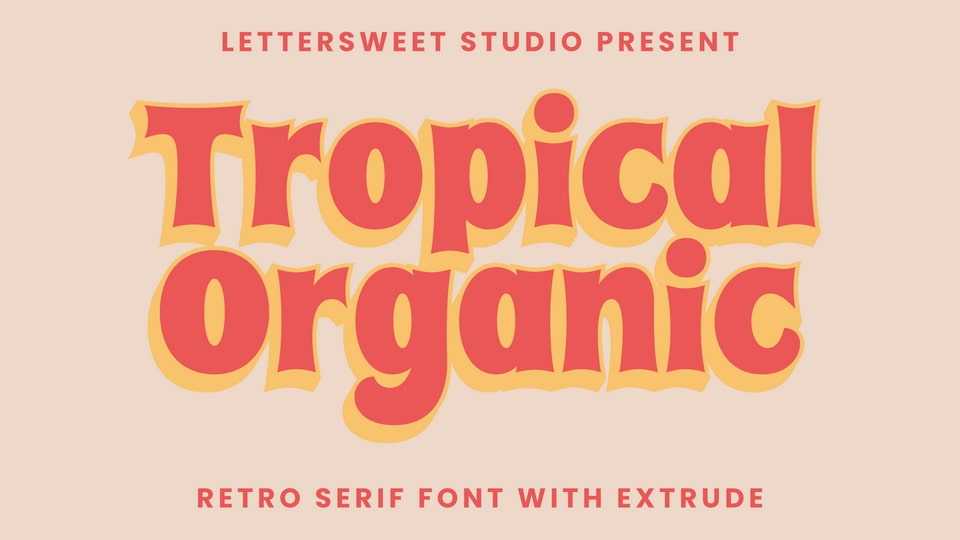
Download Tropical Organic font, a bold and playful retro typeface font with a groovy, hand-drawn feel. Its curvy and dynamic letterforms exude a warm, nostalgic vibe.